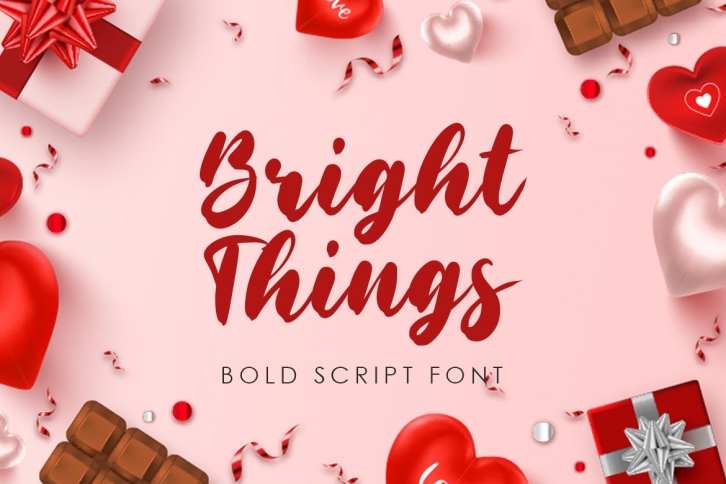
Bright Things is a gorgeous font that was realeased on February 10, 2021. The font can be used in many style contexts and design environments. Perfect for invitations, magazines, websites, logos, and more! It was designed by nailetter and the file size is 13.31 MB. Thanks for checking out this font!